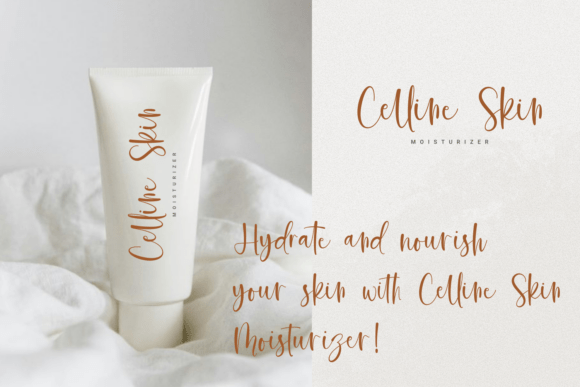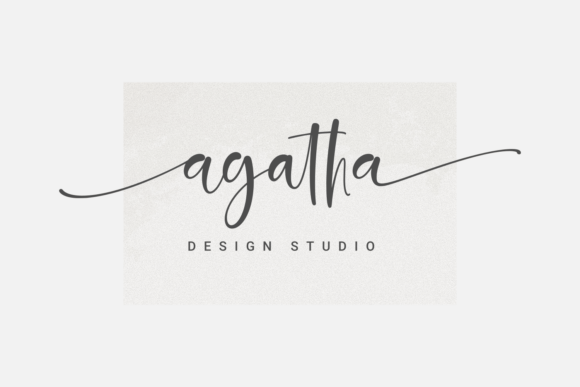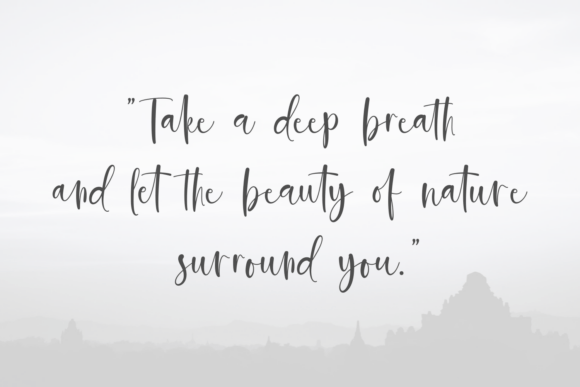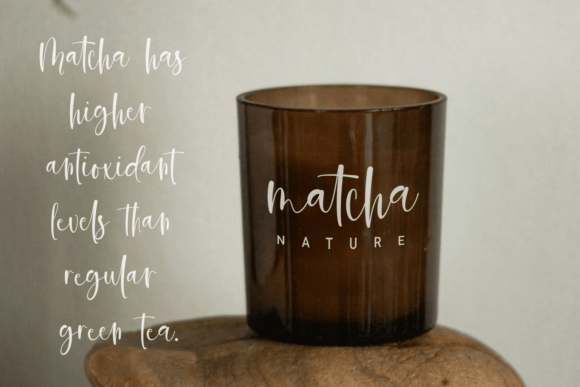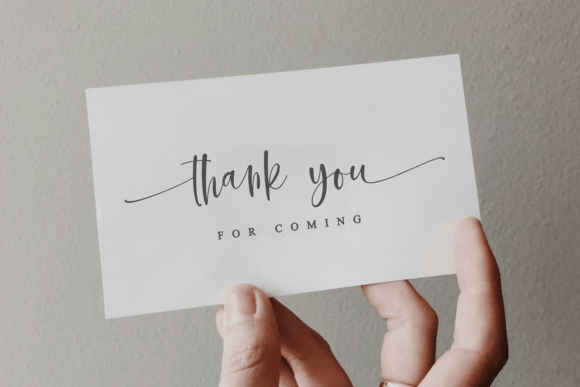
Bellidong Font: Elevate Your Designs with Elegance and Sophistication
In the world of typography, a well-crafted font can make all the difference in elevating your designs from ordinary to extraordinary. If you’re a designer, crafter, or DIY enthusiast looking for a font that exudes elegance and sophistication, look no further than Bellidong Font. This beautiful, handwritten font is designed to add a touch of refinement and poise to your projects, making it perfect for a wide range of applications.
The Essence of Bellidong Font
Bellidong Font is an elegant and stylish handwritten font that captures the essence of an authentic signature. With its soft lines and unique touch, this font brings a level of sophistication and polish to your designs that’s hard to match. Whether you’re creating greeting cards, invitations, or personal branding materials, Bellidong Font is the perfect choice for adding a touch of elegance and refinement.
Key Features of Bellidong Font
• Elegant and Stylish: Bellidong Font features soft lines and a unique touch that gives it an air of sophistication and refinement.
• PUA Encoded: This font is PUA encoded, making it easy to access all glyphs and swashes with ease.
• Timeless Charm: Bellidong Font brings a level of timeless charm to your written expression, making it perfect for designs that require a touch of classic elegance.
• Versatile: This font is perfect for a wide range of applications, including greeting cards, invitations, personal branding, and more.
Why Choose Bellidong Font?
So why choose Bellidong Font for your next design project? Here are just a few reasons:
• Adds a Polite and Elegant Touch: Bellidong Font adds a level of polish and sophistication to your designs, making it perfect for formal events and applications.
• Perfect for Personal Branding: This font is ideal for personal branding, allowing you to create a unique and memorable visual identity.
• Easy to Use: With its PUA encoding, Bellidong Font is easy to use and access, making it simple to incorporate into your designs.
• Timeless Appeal: This font has a timeless appeal that will never go out of style, making it a great investment for designers and crafters.
Using Bellidong Font in Your Designs
Using Bellidong Font in your designs is easy. Here are a few tips to get you started:
• Pair it with Other Fonts: Bellidong Font pairs well with other fonts, making it easy to create a unique and visually appealing design.
• Use it for Headings and Titles: This font is perfect for headings and titles, adding a touch of elegance and sophistication to your designs.
• Experiment with Swashes: With its PUA encoding, Bellidong Font comes with a range of swashes and glyphs to experiment with, making it easy to add a personal touch to your designs.
In conclusion, Bellidong Font is a beautiful and elegant handwritten font that’s perfect for designers, crafters, and DIY enthusiasts looking to add a touch of sophistication and refinement to their designs. With its soft lines, unique touch, and PUA encoding, this font is easy to use and versatile, making it perfect for a wide range of applications. Whether you’re creating greeting cards, invitations, or personal branding materials, Bellidong Font is the perfect choice for adding a touch of elegance and poise to your designs.